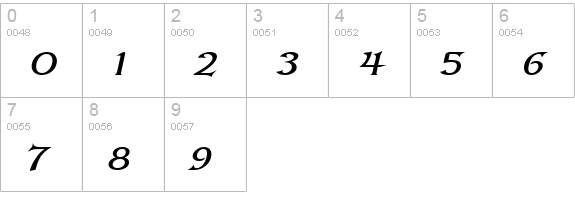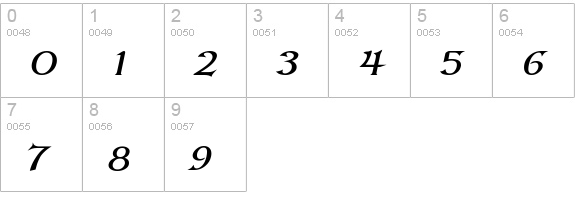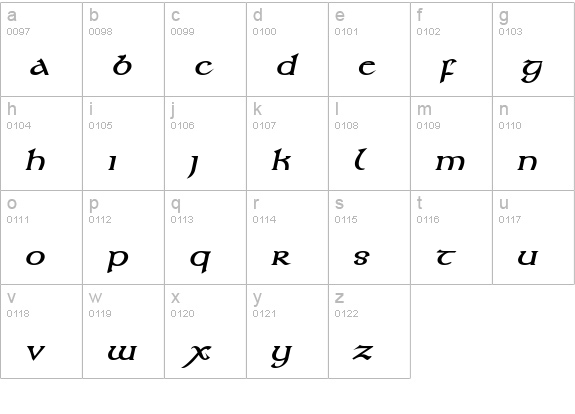
Kelt Wide BoldItalic is a distinctive, extended-width variant in the Kelt typeface family \xE2\x80\x94 well suited to design and typography projects.
Kelt Wide BoldItalic is a striking and versatile font that exudes elegance and sophistication. With its bold and italicized design, this font effortlessly captures attention and adds a touch of flair to any project. The unique combination of wide letterforms and bold italic styling creates a visually captivating aesthetic that is perfect for headlines, titles, and branding materials. Whether you're designing a logo, creating eye-catching posters, or crafting a stylish website, Kelt Wide BoldItalic is sure to make a bold statement. One of the best features of Kelt Wide BoldItalic is that it is available for free. Yes, you heard that right! This amazing font can be freely downloaded at FontsMarket.com. So you can enhance your designs without worrying about any additional costs. Not only is Kelt Wide BoldItalic a visually stunning font, but it also offers excellent legibility. Each character is carefully crafted to ensure readability, even at smaller sizes. This makes it a great choice for both print and digital projects. The versatility of Kelt Wide BoldItalic knows no bounds. From fashion and beauty branding to luxury and high-end products, this font can effortlessly elevate any design to the next level. Its modern and sophisticated style adds a touch of professionalism and refinement, making it a go-to choice for designers seeking to make a lasting impression. So why wait? Download Kelt Wide BoldItalic for free at FontsMarket.com and unlock endless design possibilities. Let your creativity soar and bring your projects to life with this stunning and highly versatile font.